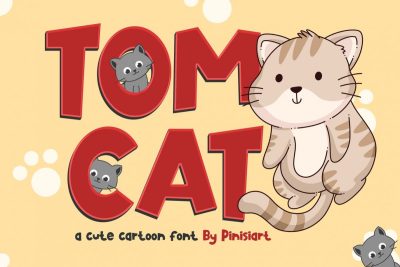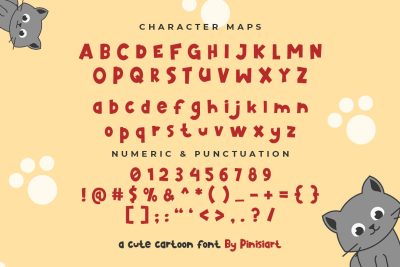
Funny font Tomcat is a playful and adorable cartoon typeface that brings charm and fun to any creative project. With its bold, rounded letters and slightly bouncy design, this font captures a lighthearted and friendly feel, making it perfect for designs that aim to be cute, cheerful, and engaging. Moreover, its smooth edges and 3D-style shadows add depth and personality, ensuring that every design pops with a warm and inviting look.
Additionally, Tomcat stands out because of its balanced combination of boldness and cuteness. The font is designed to be highly readable while still playful, making it an excellent choice for children’s materials, pet-related branding, and whimsical product packaging. Whether youโre designing for a kidsโ book, a fun greeting card, or an eye-catching social media post, this font helps create a welcoming and joyful atmosphere. Its versatility ensures it fits various creative projects, both digital and print.
Funny Font Tomcat Perfect For
Tomcat is ideal for designers, illustrators, and brands looking for a typeface that radiates fun and friendliness. Specifically, it works best in the following applications:
- Childrenโs Books and Storytelling: For example, use it to create book covers, chapter headings, or playful text inside childrenโs storybooks. The rounded letters and warm aesthetic appeal to young readers and parents alike.
- Pet-Related Branding and Products: Similarly, it is a perfect fit for pet shops, cat cafรฉs, or pet food packaging. Since the font has a fun and charming personality, it connects well with animal lovers.
- Event Invitations and Greeting Cards: In particular, it works well for birthday invitations, baby showers, or holiday greeting cards. The fontโs playful style adds a joyful and inviting touch.
- Toys and Kidsโ Products: Additionally, itโs great for branding childrenโs toys, games, and playful merchandise. The bubbly and bold lettering makes it visually appealing to kids.
- Social Media Graphics and YouTube Thumbnails: Likewise, enhance social media posts or video thumbnails with this fun, cartoon-style font. It is eye-catching and adds a friendly, entertaining vibe.
- Merchandise and Crafts: Furthermore, use it for T-shirts, stickers, mugs, and other custom products. The soft yet bold look makes it suitable for both cute and trendy designs.
- Educational Materials: Finally, apply it to flashcards, school worksheets, or classroom decorations. The fontโs readability and friendly look make learning more engaging for children.
Overall, Funny font Tomcat is an excellent choice for anyone looking to create adorable, fun, and engaging designs. Because of its playful and inviting aesthetic, it enhances a variety of projects, from branding to childrenโs media. Whether you’re designing for pet lovers, kids, or playful merchandise, this font brings a touch of cuteness and charm to every creation.